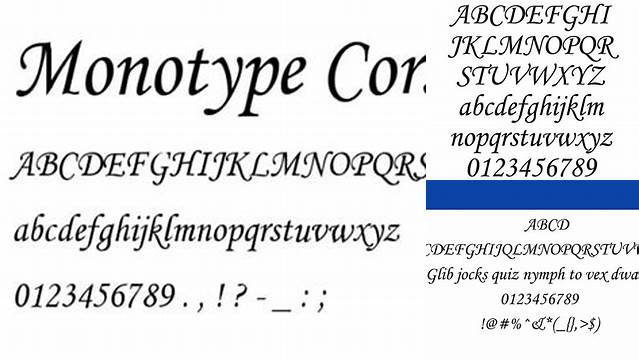
What is Monotype Corsiva?
Let’s get to know our star font a little better. Monotype Corsiva is a script typeface designed by Patricia Saunders in 1995 for Monotype Imaging. It’s inspired by the Italian cursive styles of the 16th century, giving it a classic yet contemporary feel. This font is characterized by its elegant, flowing letters and delicate strokes, making it perfect for projects that need a touch of sophistication and personal flair. Think wedding invitations, greeting cards, branding materials, and more. The beauty of Monotype Corsiva lies in its versatility – it can be both formal and informal, depending on how you use it.
The Monotype Corsiva font distinguishes itself from other script typefaces through its unique blend of classical and modern elements. The flowing, calligraphic strokes evoke a sense of tradition, reminiscent of the elegant handwriting styles of the past. This historical influence gives the font a timeless quality, making it suitable for designs that aim to convey a sense of heritage or sophistication. However, Monotype Corsiva also incorporates contemporary design principles, ensuring it remains relevant and adaptable to modern design trends.
One of the key characteristics of Monotype Corsiva is its high degree of legibility, even in smaller sizes. This is due to the careful spacing and clear letterforms designed by Patricia Saunders. Many script fonts sacrifice readability for aesthetics, but Monotype Corsiva strikes a balance between visual appeal and functional design. The consistent stroke weight and well-defined ascenders and descenders contribute to its overall clarity, making it a practical choice for a wide range of applications.
Monotype Corsiva's elegance stems from its calligraphic roots, mirroring the fluid strokes of a skilled calligrapher. The graceful curves and loops create a sense of movement and rhythm, making it visually captivating. This inherent artistry makes the font particularly well-suited for projects where visual impact is crucial, such as invitations, branding, and packaging. The distinctive letterforms of Monotype Corsiva add a unique personality to any design, setting it apart from more generic typefaces.
Another factor contributing to Monotype Corsiva’s elegance is its delicate serifs, which provide subtle finishing touches to the letterforms. These serifs enhance the font's visual appeal without overwhelming the overall design. The refined details add a touch of sophistication, making it ideal for projects that require a polished and professional look. The serifs also contribute to the font's legibility, guiding the reader's eye along the text and improving the reading experience.
Monotype Corsiva also works beautifully in both print and digital media. Its clean lines and balanced design ensure it displays clearly on screens, making it a great option for websites, digital marketing materials, and e-books. In print, its delicate strokes and refined serifs come to life, adding a touch of elegance to any physical product. This versatility makes Monotype Corsiva a valuable asset for designers working across different mediums.